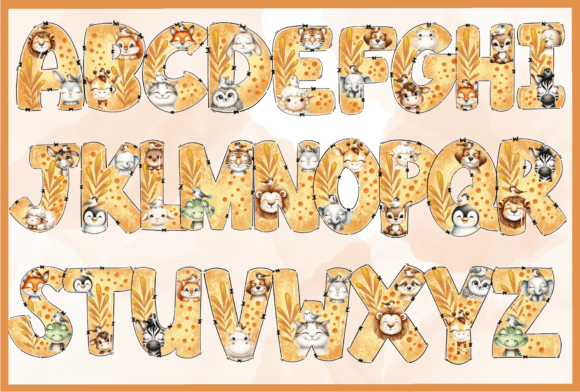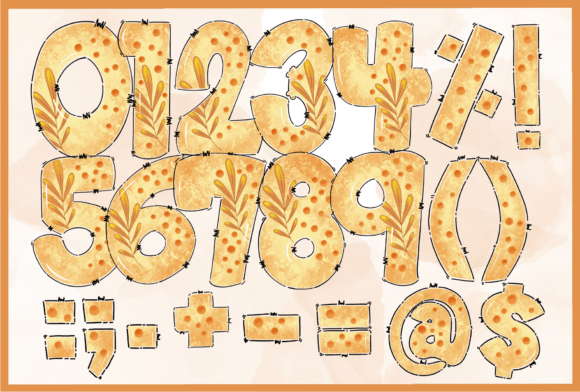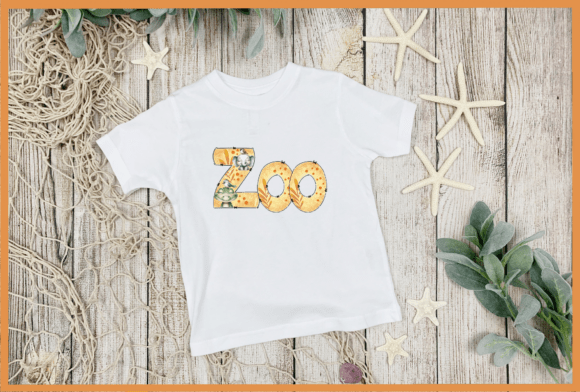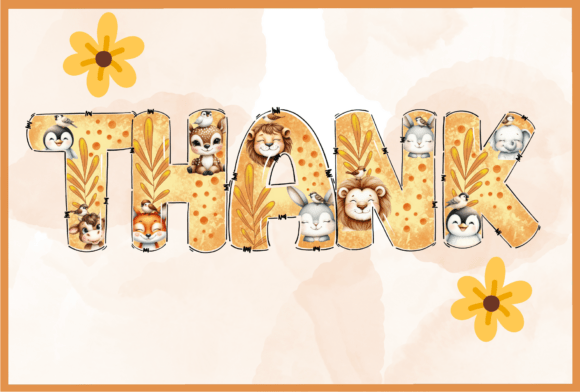
Cute Animals Font: Add a Touch of Whimsy to Your Designs
Are you looking for a font that can add a dash of cuteness to your designs? Look no further than the Cute Animals Font! This adorable display color font is packed with lovable characters and cheerful patterns that are sure to bring a smile to anyone’s face. In this article, we’ll take a closer look at what makes this font so special and how you can use it to take your designs to the next level.
What is Cute Animals Font?
Cute Animals Font is a unique display font that features charming animal illustrations, including tigers, bunnies, penguins, and more. Each letter of the alphabet is carefully crafted to showcase a different animal, making it perfect for kids’ projects, nursery decor, birthday cards, classroom designs, and anything that needs a big smile.
Key Features of Cute Animals Font
- Adorable Animal Illustrations: Each letter of the alphabet features a unique and adorable animal illustration, making it perfect for designs that require a touch of whimsy.
- Cheerful Patterns: The font comes with a range of cheerful patterns that can be used to add an extra layer of fun to your designs.
- Color Font: Cute Animals Font is a color font, which means you can use it to add a pop of color to your designs.
Uses for Cute Animals Font
Cute Animals Font is a versatile font that can be used for a wide range of design projects, including:
- Kids’ Projects: The font is perfect for kids’ projects, such as posters, flyers, and worksheets.
- Nursery Decor: The font can be used to create adorable nursery decor, such as wall art and nursery rhymes.
- Birthday Cards: The font is perfect for creating custom birthday cards that are sure to delight kids and adults alike.
- Classroom Designs: The font can be used to create engaging classroom designs, such as bulletin boards and educational posters.
Cute Animals Font is a unique and adorable display font that is perfect for designers and crafters who want to add a touch of whimsy to their designs. With its charming animal illustrations, cheerful patterns, and bonus PNG files, this font is sure to delight kids and adults alike. Whether you’re working on a kids’ project, nursery decor, birthday card, or classroom design, Cute Animals Font is the perfect choice. So why wait? Download Cute Animals Font today and start creating designs that are sure to bring a smile to everyone’s face!